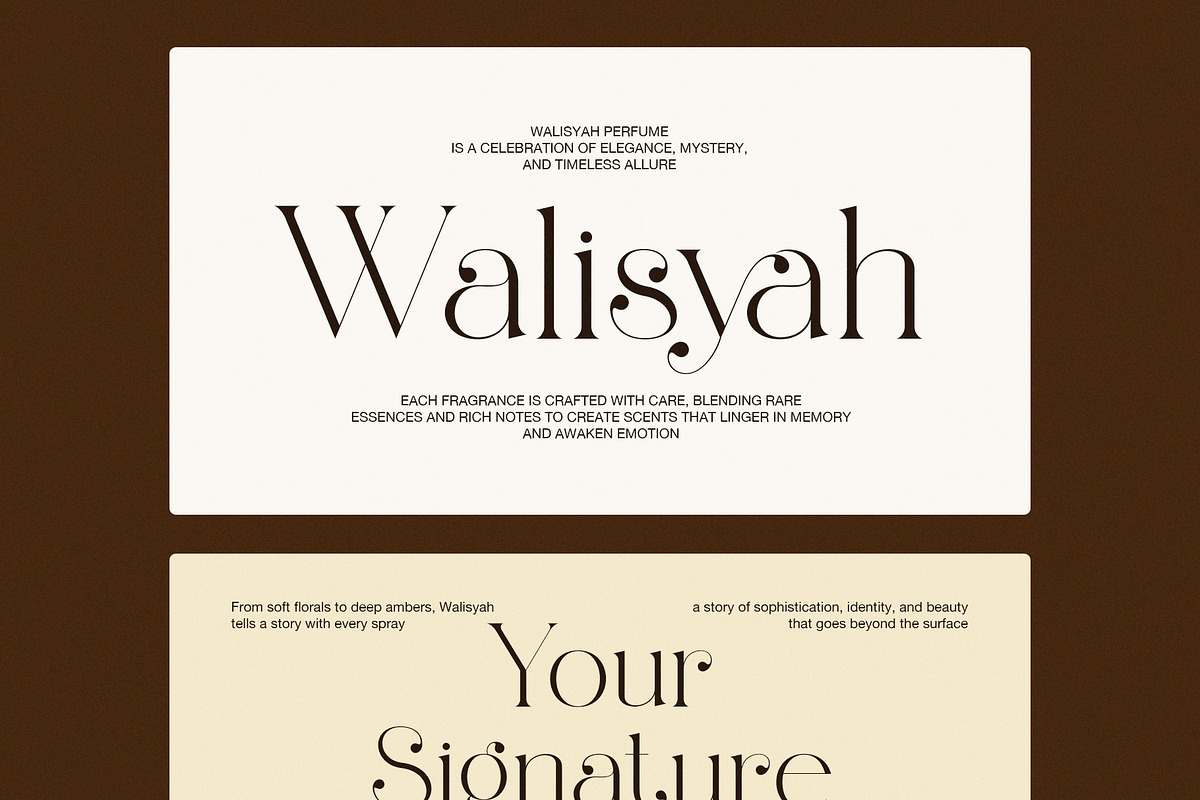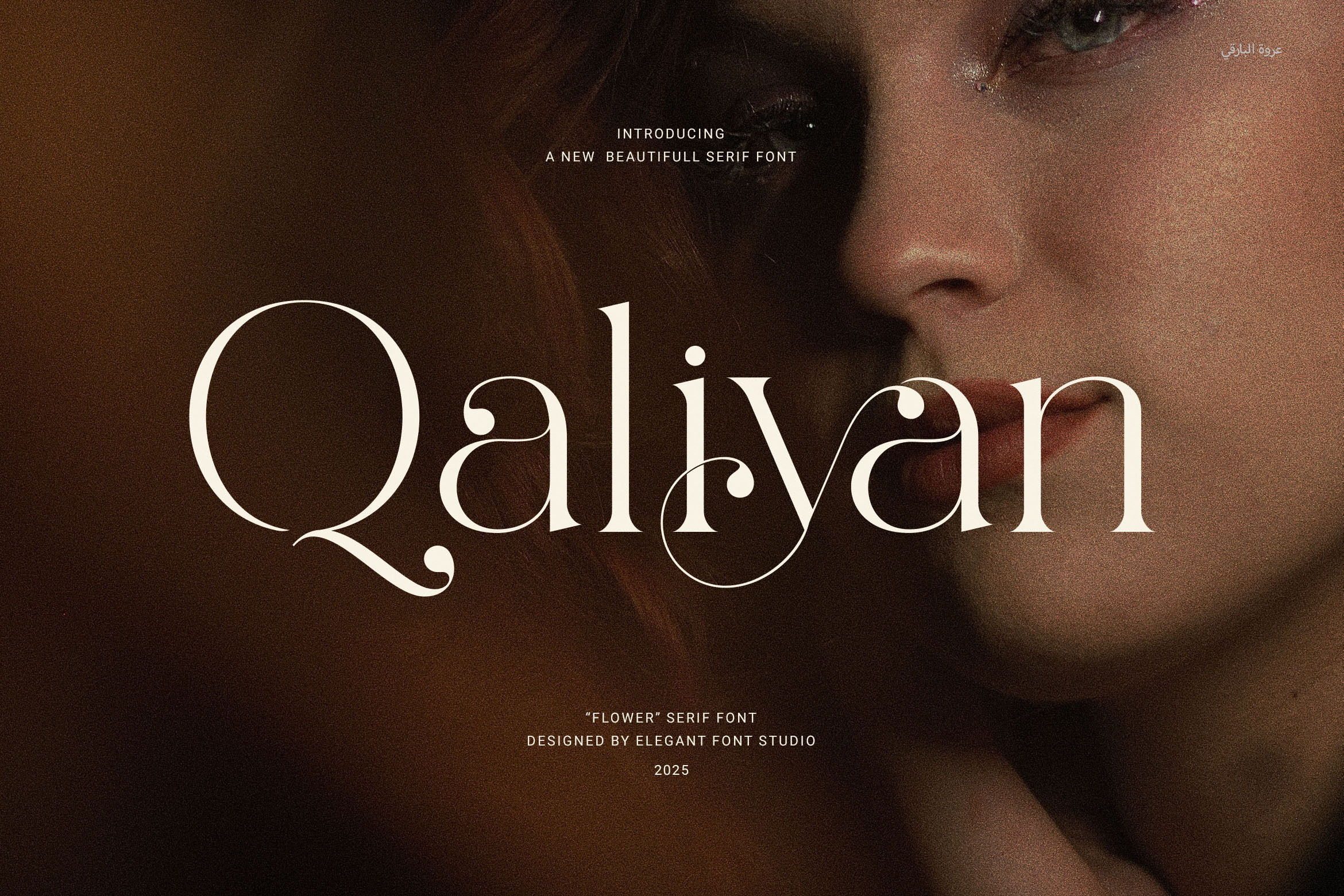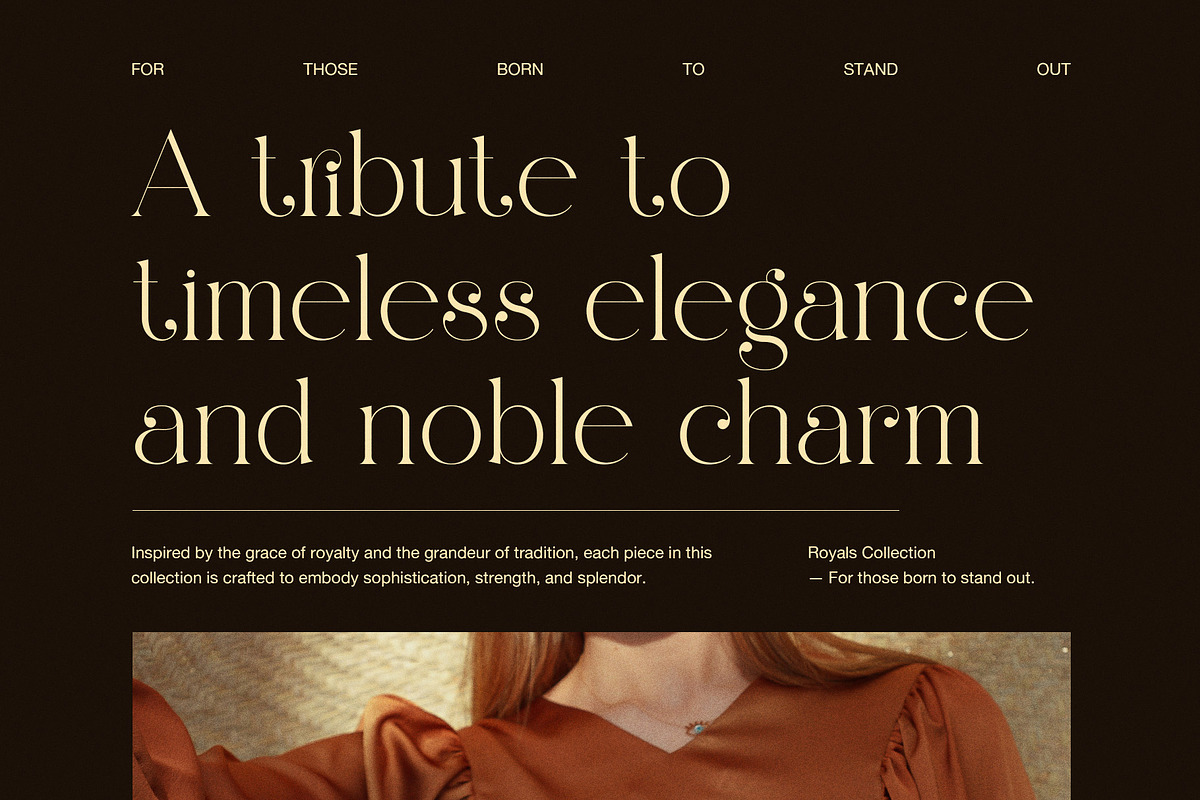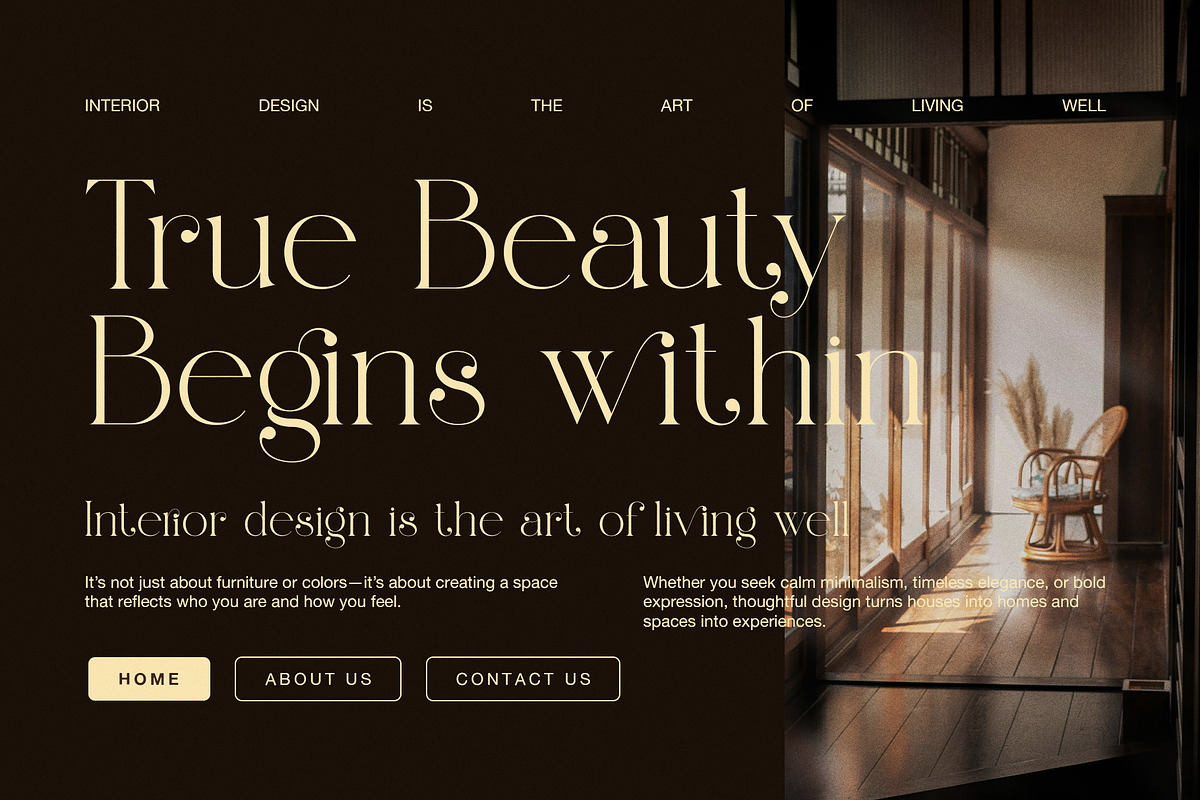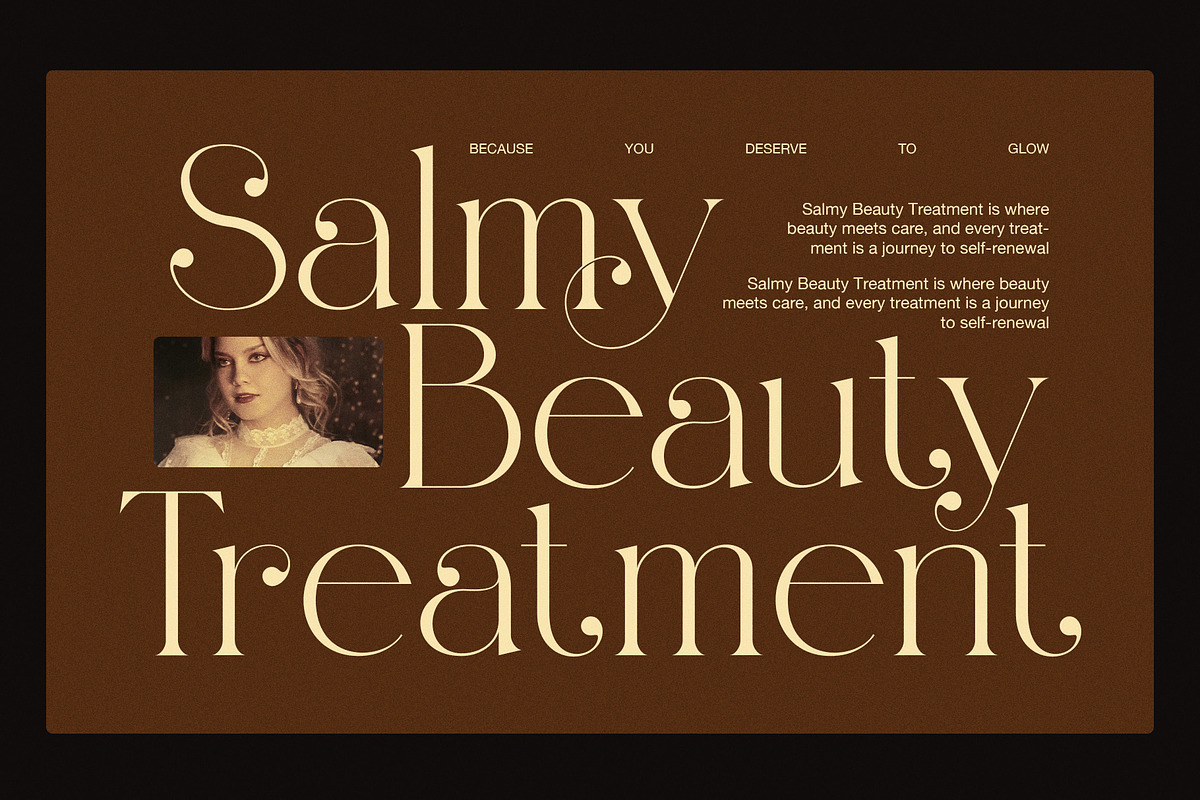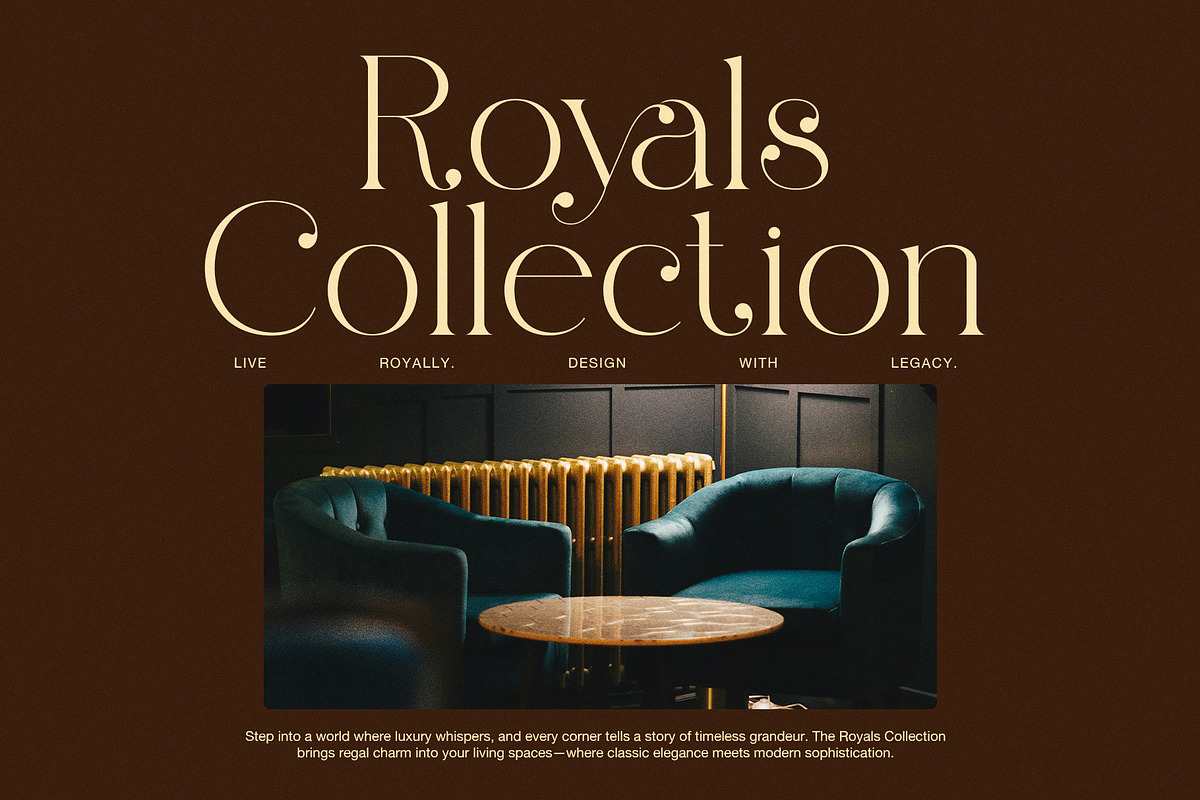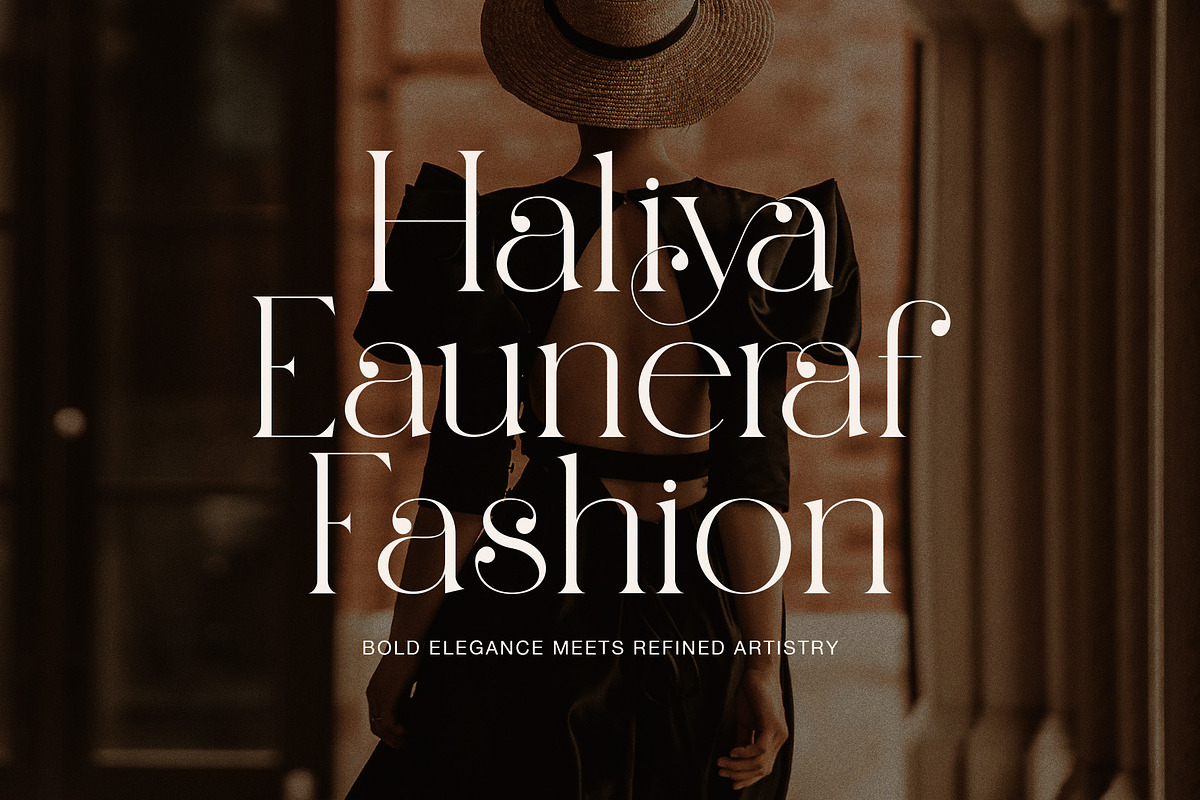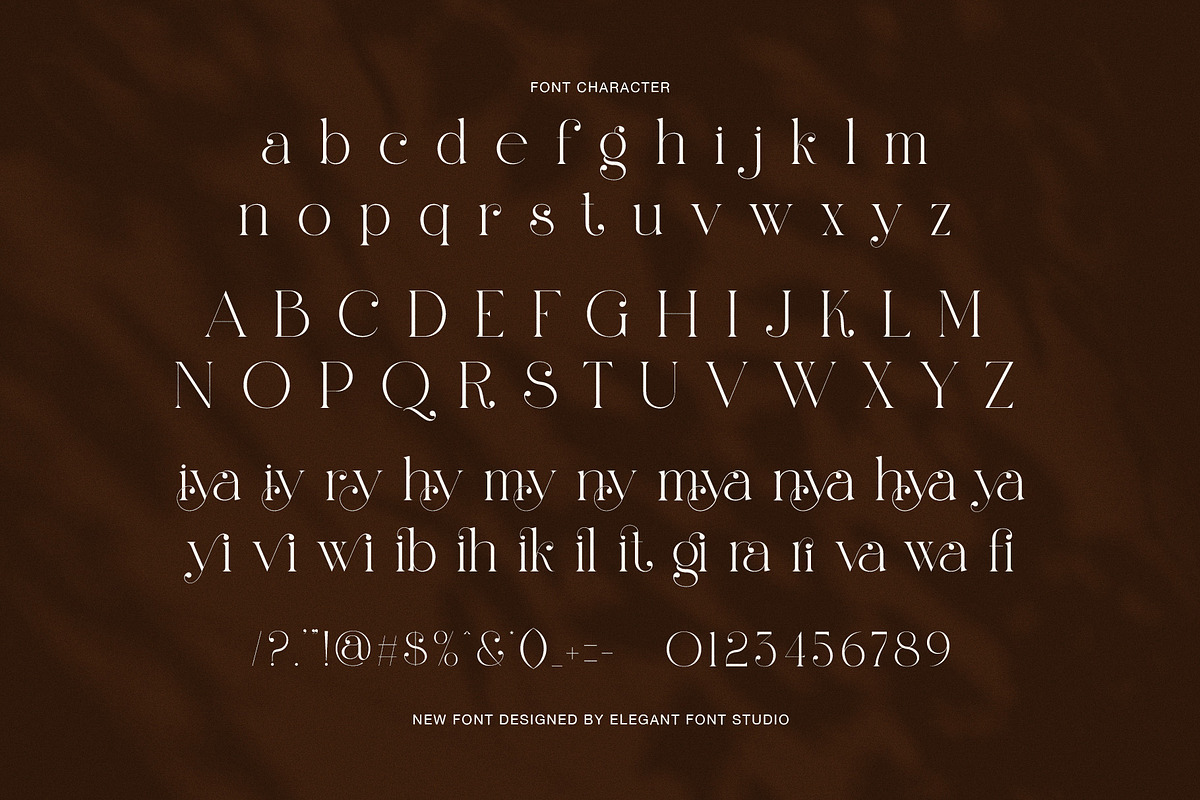
Qaliyan Elegant Serif Font
Qaliyan Elegant Serif Font – Modern Elegance for Premium Branding
Qaliyan is a modern and elegant serif font designed to bring high-class style and clarity to your creative work. With graceful letterforms, proportional spacing, and stylish ligatures, this typeface combines timeless beauty with everyday usability. It’s ideal for businesses that need a clean yet luxurious font that performs beautifully across all media.
Whether you're designing for a boutique, a fashion label, a premium food brand, or a digital product, Qaliyan adapts with ease. Its sleek serif lines and balanced forms ensure professional results in logos, websites, editorial layouts, packaging, and advertisements.
Crafted for both aesthetics and function, Qaliyan includes carefully designed ligatures that create smooth, flowing typography. Every character has been made with precision, so it looks sharp in print and digital use alike. If you're building a strong brand, this font adds credibility and elegance with every word.
✨ Why Choose Qaliyan Elegant Serif Font?
Elegant Serif Design – Perfect for creating a modern, luxurious impression
Functional Ligatures – Adds detail and flow without distracting from readability
Balanced Proportions – Delivers professional and clean visual spacing
Ideal for Branding – Great for logos, packaging, websites, magazines, and more
Versatile Use – Suitable for fashion, boutiques, food, products, and advertisements
Business-Ready – Scales for large commercial use and corporate design
With Qaliyan, you’re not just choosing a font—you’re adding elegance, clarity, and confidence to every design.